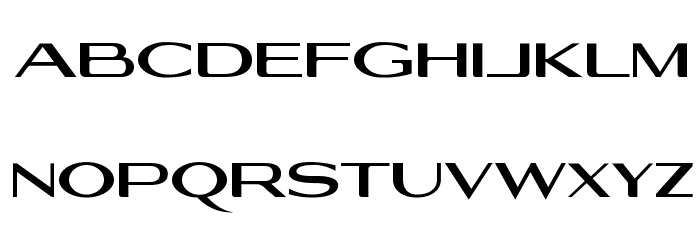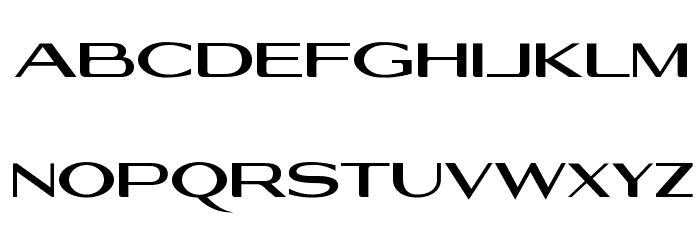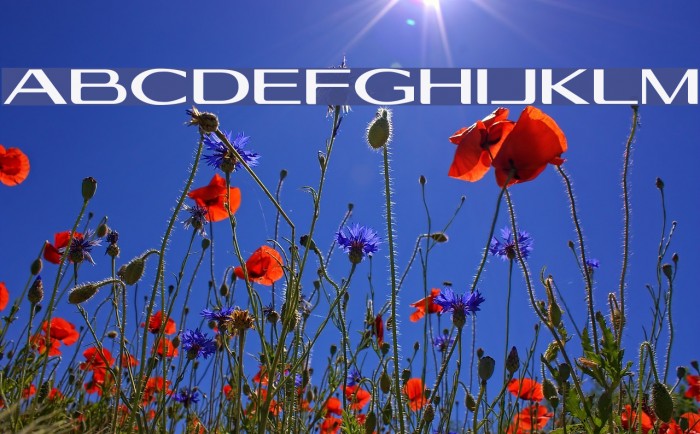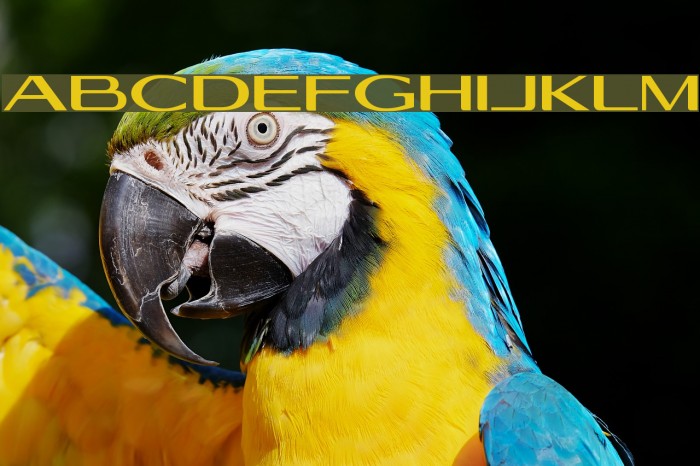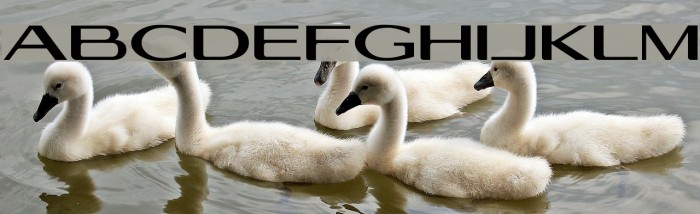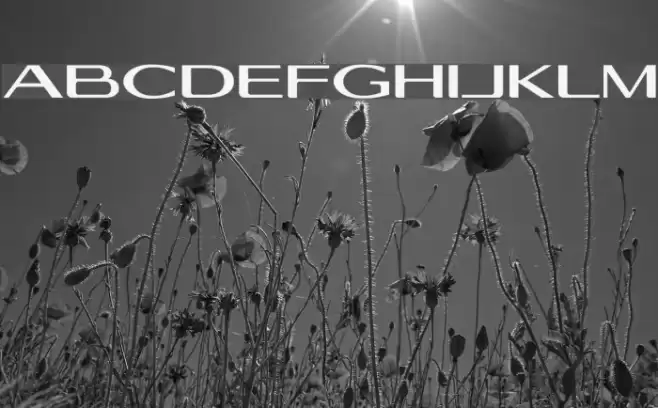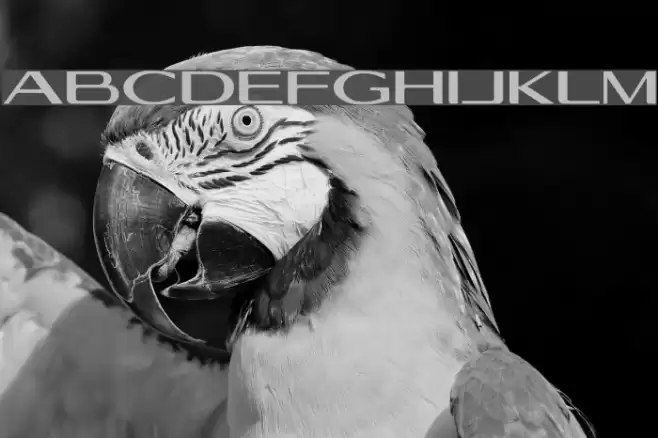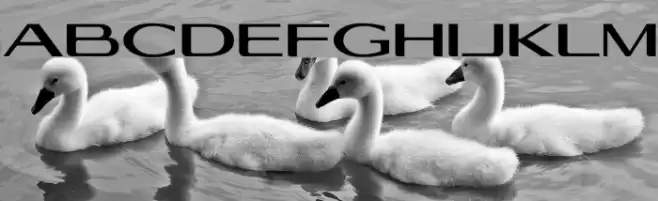
Georgiquas Font
This font exhibits a modern and sleek design with a distinctive geometric flair. The characters are bold and feature sharp, angular edges that give them a futuristic appearance. The uppercase letters are uniform in height, providing a clean and organized look. The lowercase letters maintain the same geometric style, ensuring consistency throughout the typeface. The numerals are designed to match the overall aesthetic, with a similar emphasis on sharp angles and clean lines. Special characters are included, maintaining the same stylistic elements, making this font versatile for various applications.
A modern, geometric font with sharp, angular edges and a sleek design.
- Proposed Projects: Ideal for branding, logos, headlines, and any project requiring a modern and futuristic aesthetic.
- Use Case: Headlines, Logos, Branding